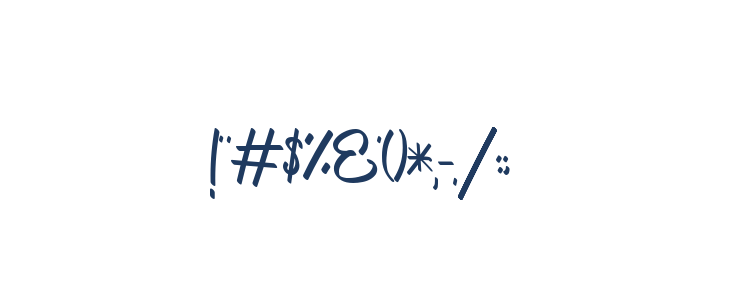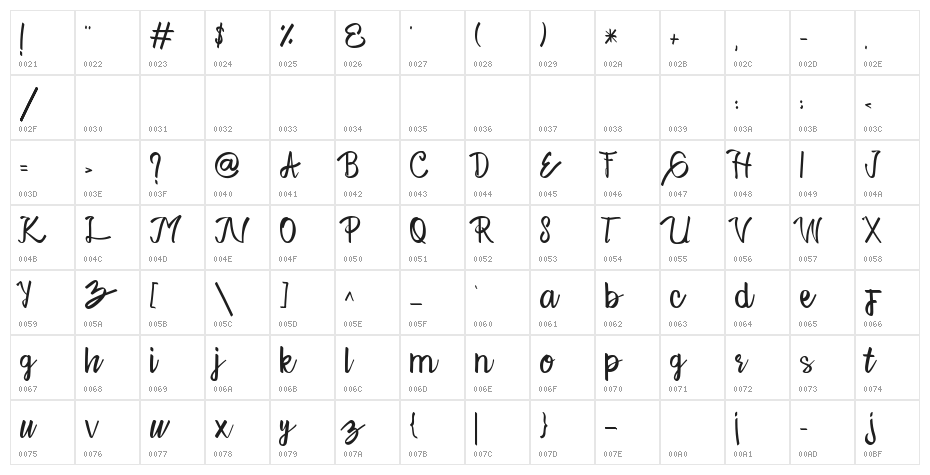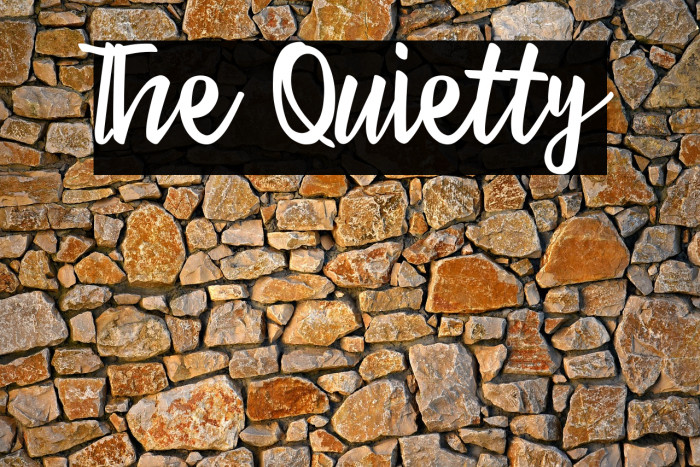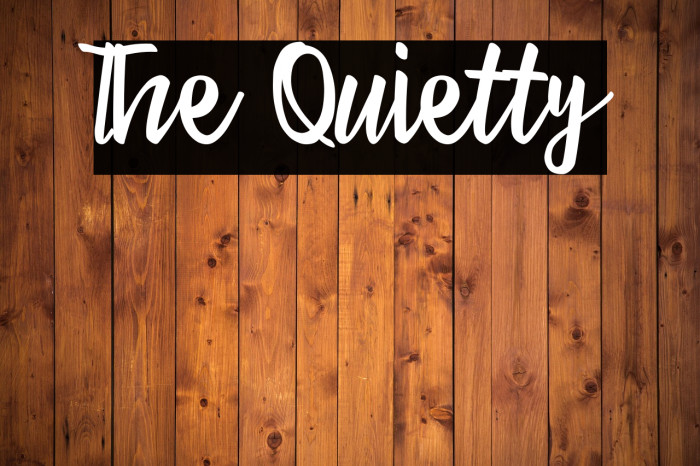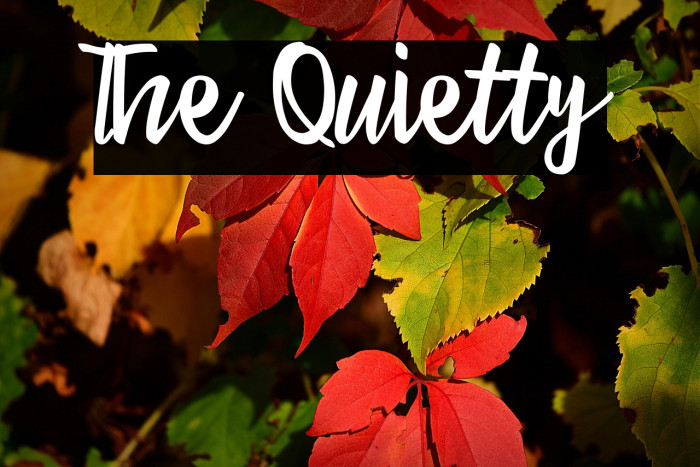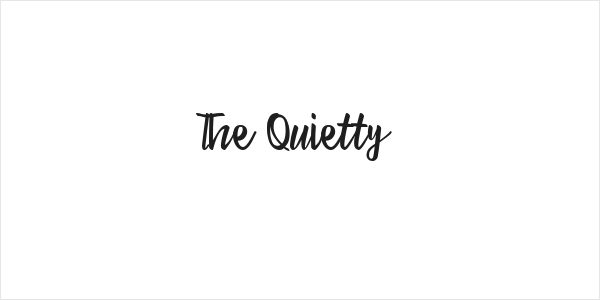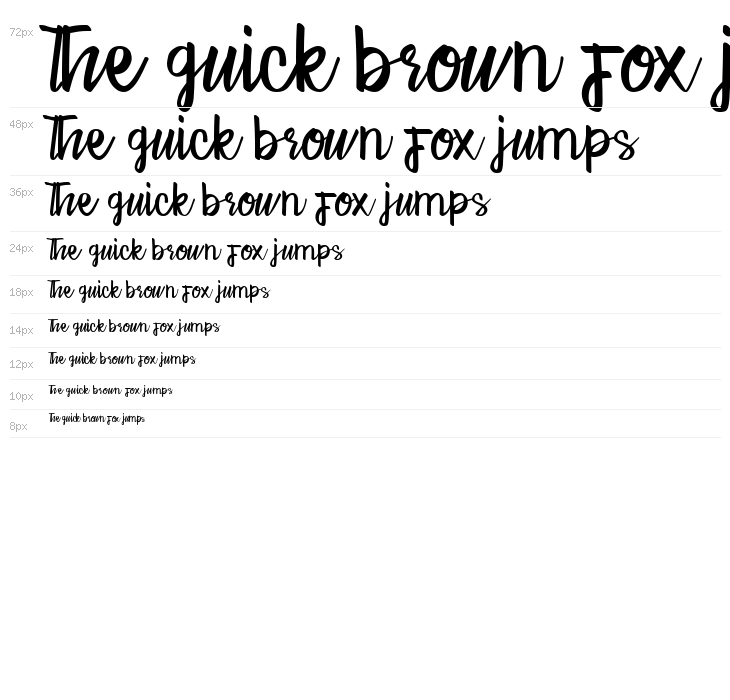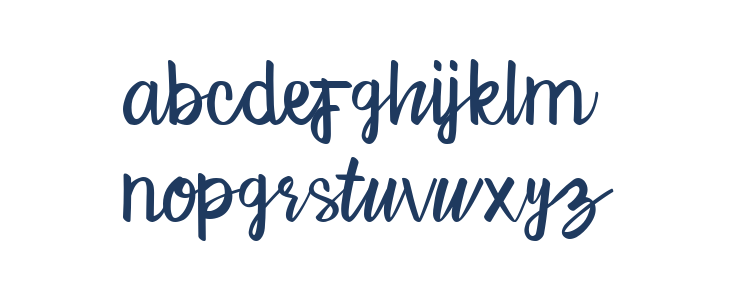
The Quietty Font
The Quietty Description
This font features a flowing, cursive style with a modern twist, characterized by its smooth, continuous strokes and elegant curves. The uppercase letters are bold and dynamic, with a playful yet sophisticated flair. The lowercase letters maintain a consistent flow, enhancing readability while preserving the artistic essence. The numerals and special characters are crafted to match the overall aesthetic, making them suitable for a variety of creative applications. This font's unique style is perfect for projects that require a personal touch, such as invitations, branding, and artistic designs.
| Use Case | Logos, Headlines, Artistic designs |
| Proposed Projects | Ideal for invitations, branding, artistic designs, and personal projects. |